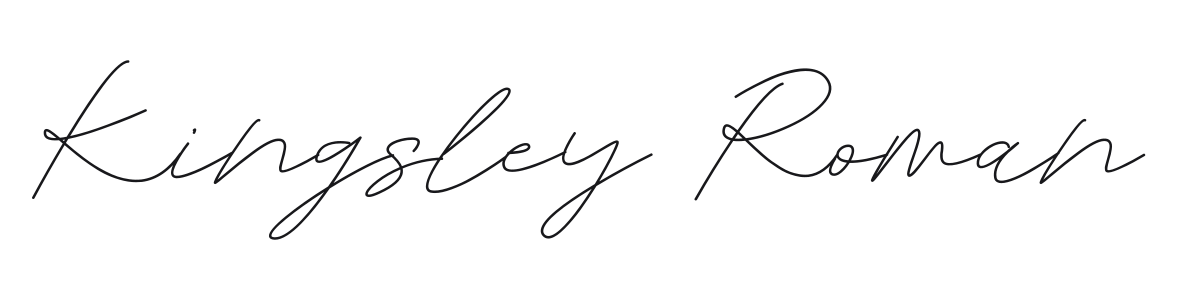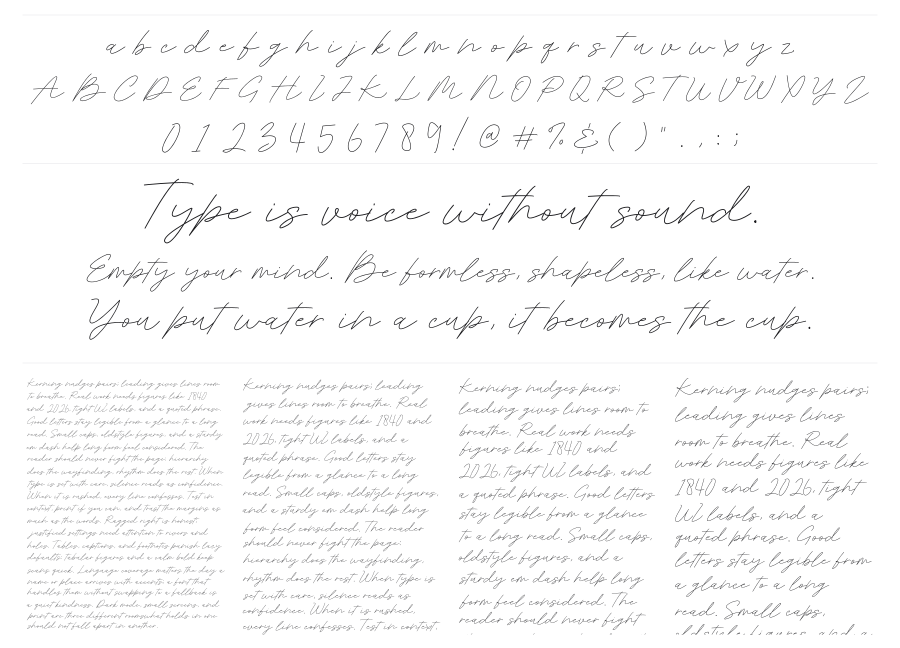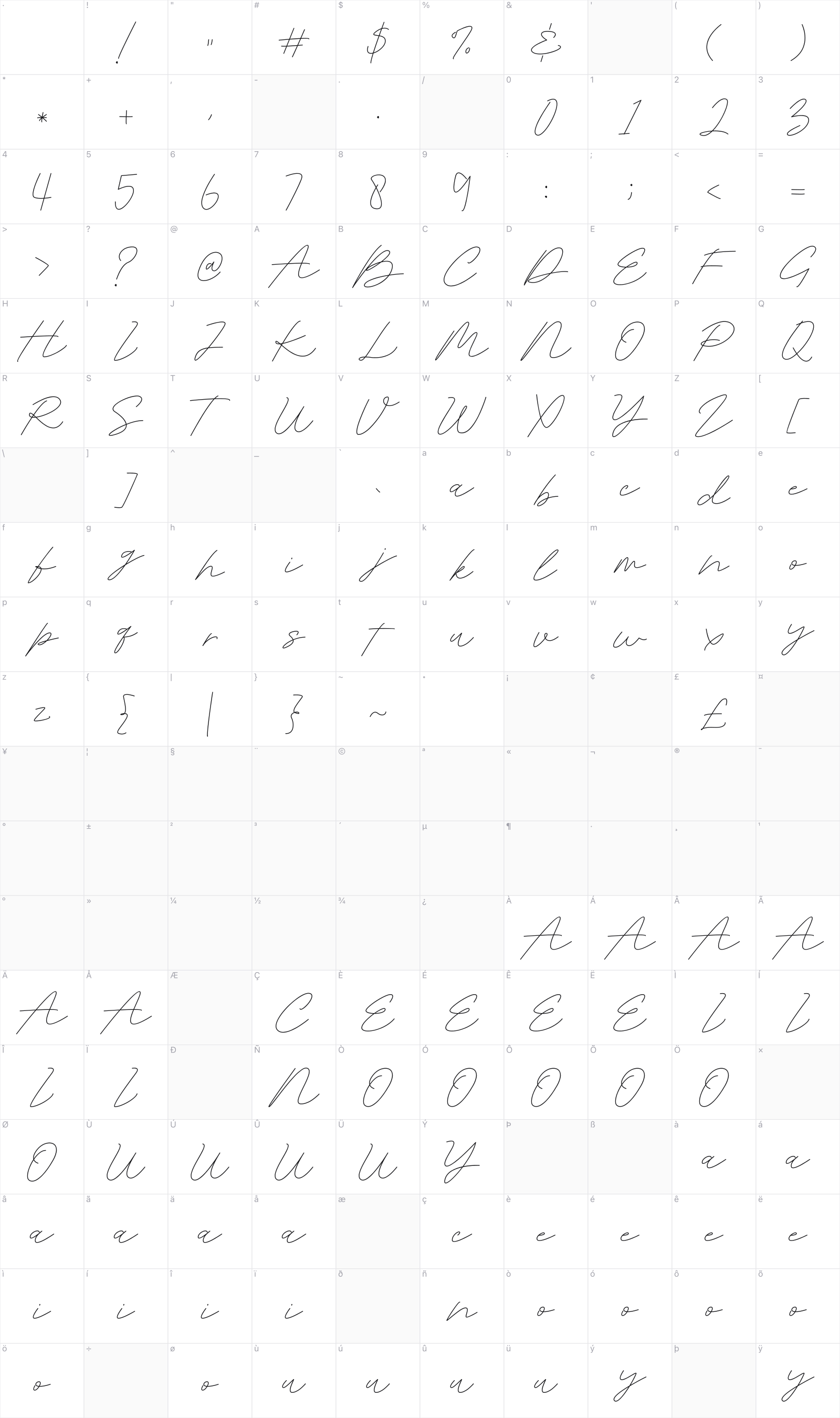
Kingsley Roman
by Sancrea Studio
Kingsley Roman is a flowing signature-style script with ultra-thin strokes and sweeping connecting lines that evoke a hand-signed flourish. The casual rhythm and extended ligatures give it an effortless, upscale feel without feeling stiff or formal. It reads best at large sizes where the delicate ink-thin strokes can breathe.